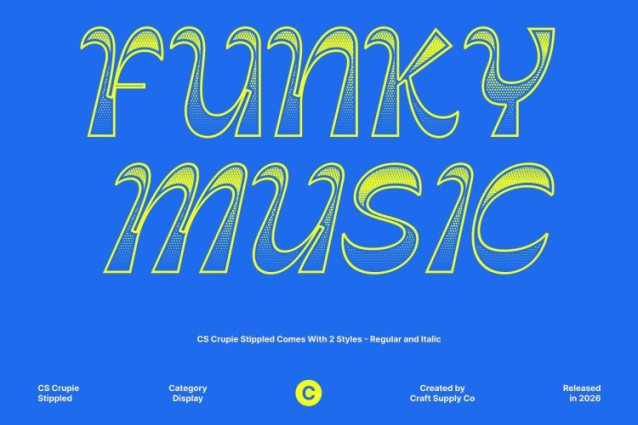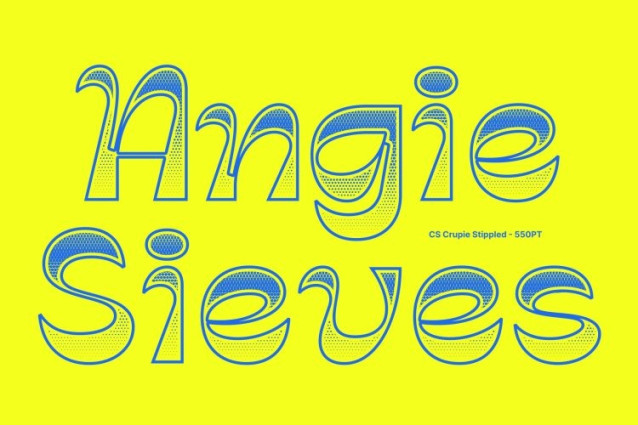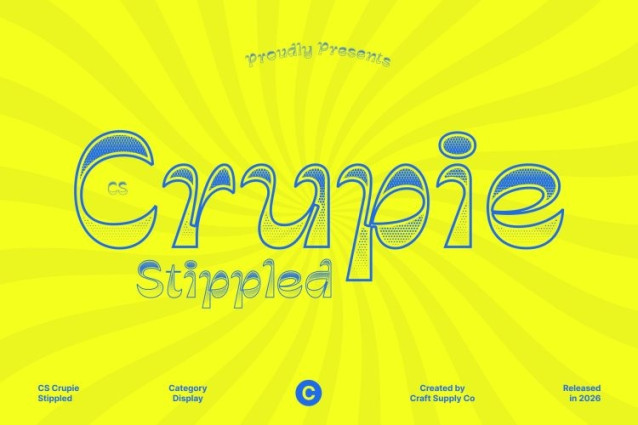
CS Crupie Stippled Font
CS Crupie Stippled Font – This is a bold reverse contrast display font that stands out through its unique balance of thick horizontal strokes and thin vertical lines. This unconventional contrast creates a dynamic visual rhythm that instantly attracts attention. Enhanced with a stippled texture, the letterforms gain a subtle dotted surface that adds depth and a handcrafted feel, enriching the font’s bold and expressive structure.
Retro Charm with Vintage Personality
Inspired by the nostalgic typography of the 1960s to 1980s, this font carries a warm retro character that echoes vintage posters, advertisements, and classic signage. Its distinctive reverse contrast structure brings a playful reinterpretation of traditional type styles, allowing designers to combine historical charm with a contemporary visual edge.
Funky Shapes with Textured Expression
The eccentric curves and lively proportions give the font a funky and unconventional personality. The stippled detailing further enhances these playful forms, creating a textured appearance that adds visual richness while maintaining the font’s strong graphic impact.
Perfect for Bold and Creative Design
This is ideal for projects that require a distinctive and memorable typographic voice. It works beautifully for retro branding, posters, album artwork, editorial headlines, packaging, and promotional graphics. By blending reverse contrast structure, vintage inspiration, and stippled texture, the font delivers a bold, nostalgic, and highly expressive design presence.